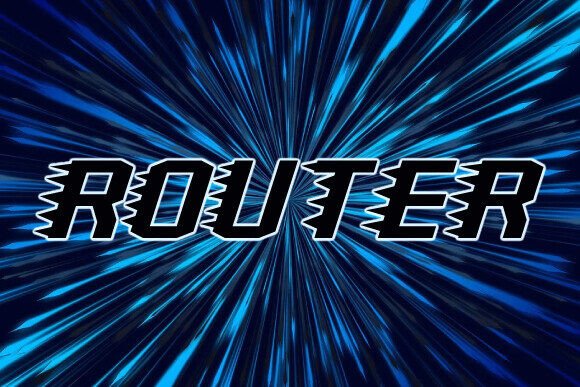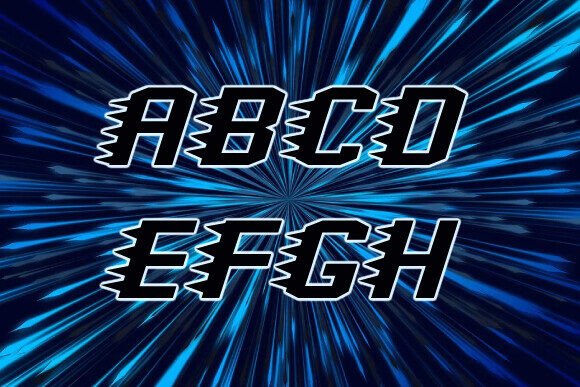
Introduction to Slow Connection Font
Slow Connection is awesome font that will look great on any of Your designs.
Key Features of Slow Connection Font